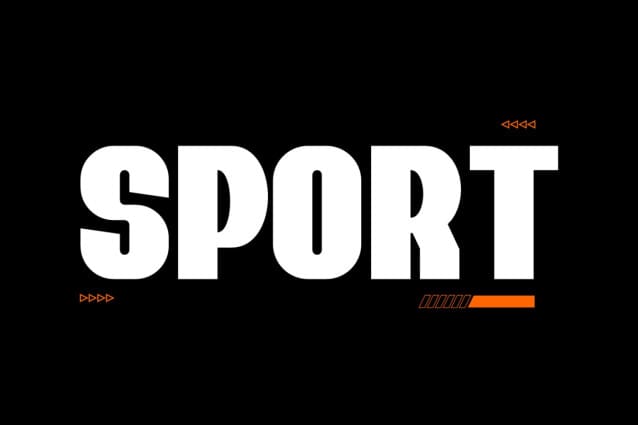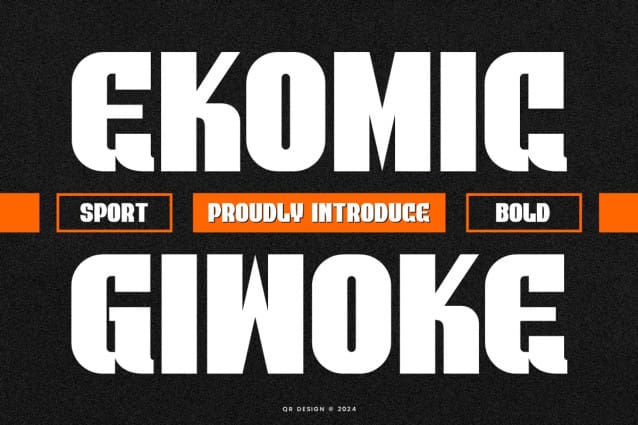
Ekomic Giwoke Font
Ekomic Giwoke Font is a bold and authentic display font. The font is suitable for any branding project like poster, logo, sport, and many more. Outstanding in a wide range of contexts.